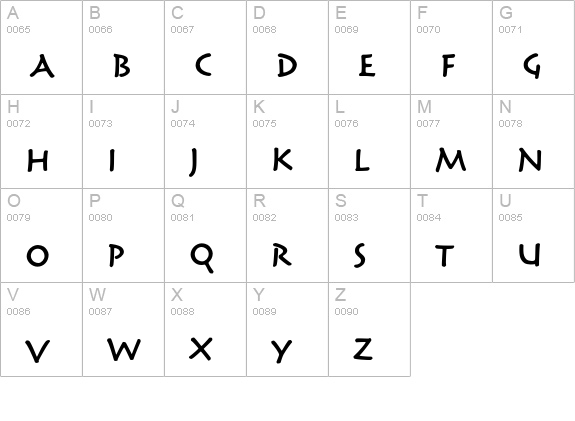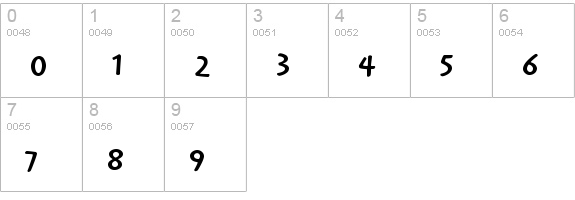
Reliq Std Semibold Active Font Details
Reliq Std Semibold Active is a sub-bold, structured variant in the Reliq typeface family \xE2\x80\x94 well suited to sub-headlines and emphasised passages.
Reliq Std Semibold Active font is a versatile and dynamic typeface that is perfect for adding a touch of boldness and energy to your designs. With its strong and sturdy letterforms, this font exudes a sense of confidence and power. Featuring a semi-bold weight, Reliq Std Semibold Active strikes the perfect balance between being attention-grabbing and legible. Its wide and open letter spacing ensures excellent readability even at smaller sizes, making it ideal for both headlines and body text. The unique design of Reliq Std Semibold Active font sets it apart from other typefaces, with its sharp angles and contemporary feel. This font is the perfect choice for projects that require a modern and edgy aesthetic, such as sports-related designs, fitness advertisements, or technology-related content. But what sets the Reliq Std Semibold Active font apart is that it is not only visually appealing, but also freely available to download at FontsMarket.com. This means that you can enhance your designs and unleash your creativity without any additional cost. Whether you are a professional designer or a hobbyist, Reliq Std Semibold Active font is a valuable addition to your font library. Its versatility and availability make it a go-to choice for a wide range of design projects. So why wait? Download the Reliq Std Semibold Active font today and elevate your designs to new heights.